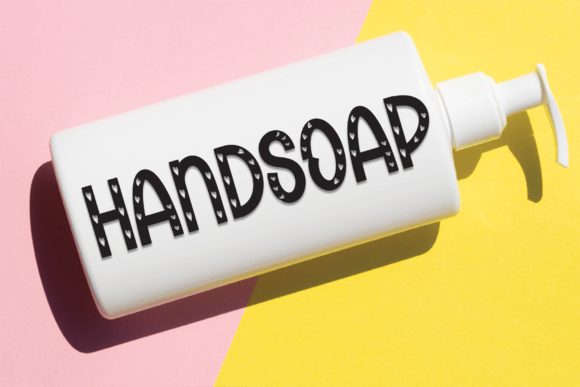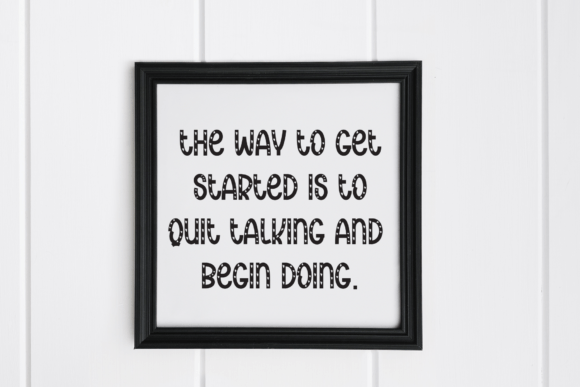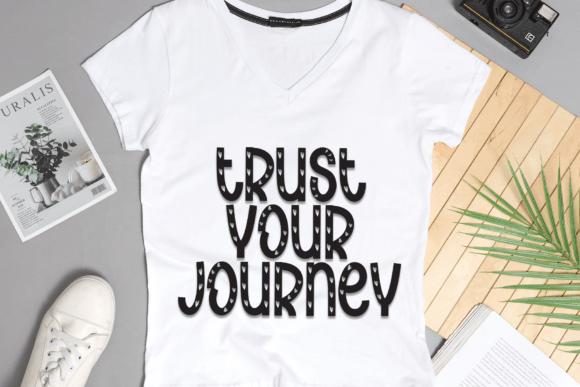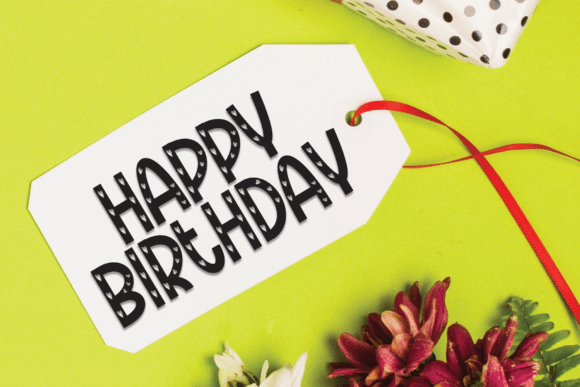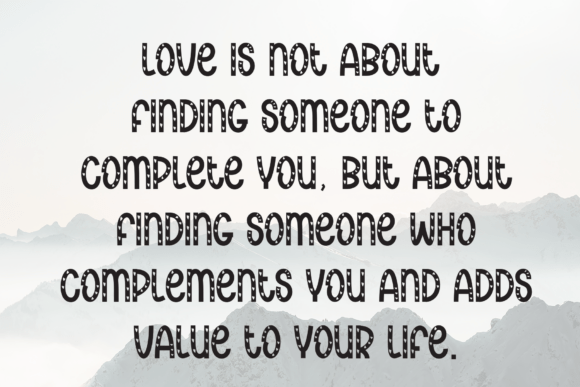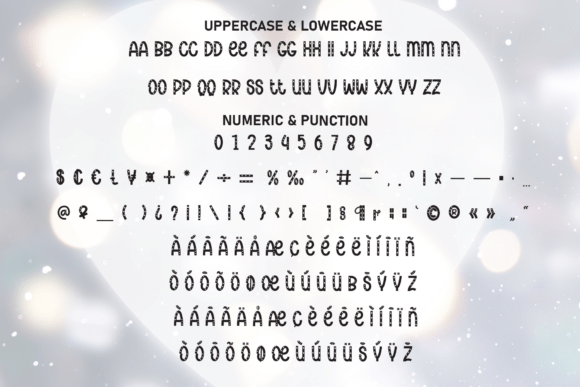
Have you ever stumbled upon a font that instantly makes you smile? You know, that perfect combination of charm and personality that makes your design come alive? For me, that moment happens whenever I crack open a fresh can of creative possibilities – like discovering a new font that sparks inspiration. And, I’m thrilled to share with you just such a find: the delightful Bright Heart Font.
This warm, inviting display font is more than just a pretty face – it’s a masterfully crafted tool designed to bring a touch of fun and playfulness to your creative projects. Whether you’re crafting artful wedding invitations or personalized cards, Bright Heart Font is the perfect companion to infuse your designs with a sprinkle of joy. As a designer, you know the value of a font that can elevate your work and make it truly special – and Bright Heart Font delivers just that.
Bright Heart Font Key Features
- Font Family: Bright Heart Font is a unique, hand-drawn font with a warm and inviting feel, ideal for creative projects and designs.
- Character Count: The font includes over 400 glyphs, ensuring comprehensive coverage of Latin characters, punctuation, and symbols.
- Size: The font is available in a single weight, but it can be easily customized using OpenType features to create a range of styles and weights.
- Unique Characteristics: Bright Heart Font features a distinctive, hand-crafted look with subtle imperfections, giving your designs a personal and human touch.
Bright Heart Font Review
Overall, I think the Bright Heart Font has some nice qualities, but it also has some limitations that prevent it from being a top choice. Here’s my honest review:
- Unique and playful feel: The Bright Heart Font has a distinct, cheerful personality that can add a lot of character to your designs.
- Good for titles and headings: The font is clear and easy to read, making it a good choice for titles and headings where you want to draw attention.
- Works well for digital and print: The font is versatile and looks good in both digital and print formats.
- May be too playful for some designs: While the font’s playful personality is a strength, it may not be suitable for all designs, especially those that require a more formal or professional tone.
- May be too condensed for longer text: The font’s condensed style can make it difficult to read for longer blocks of text.
The Bright Heart Font is a fun and versatile font that can add a lot of personality to your designs. However, its limitations prevent it from being a top choice for all designs. I would recommend using it for titles and headings, or for designs where you want to add a playful touch. With some careful consideration, the Bright Heart Font can be a great addition to your design toolkit.
The Bright Heart Font is perfect for creating visually appealing designs for greeting cards, invitations, and social media graphics. To get the most out of it, experiment with different font sizes and colors to create a balanced and eye-catching design. You can also use it to add a personal touch to your presentations and documents.